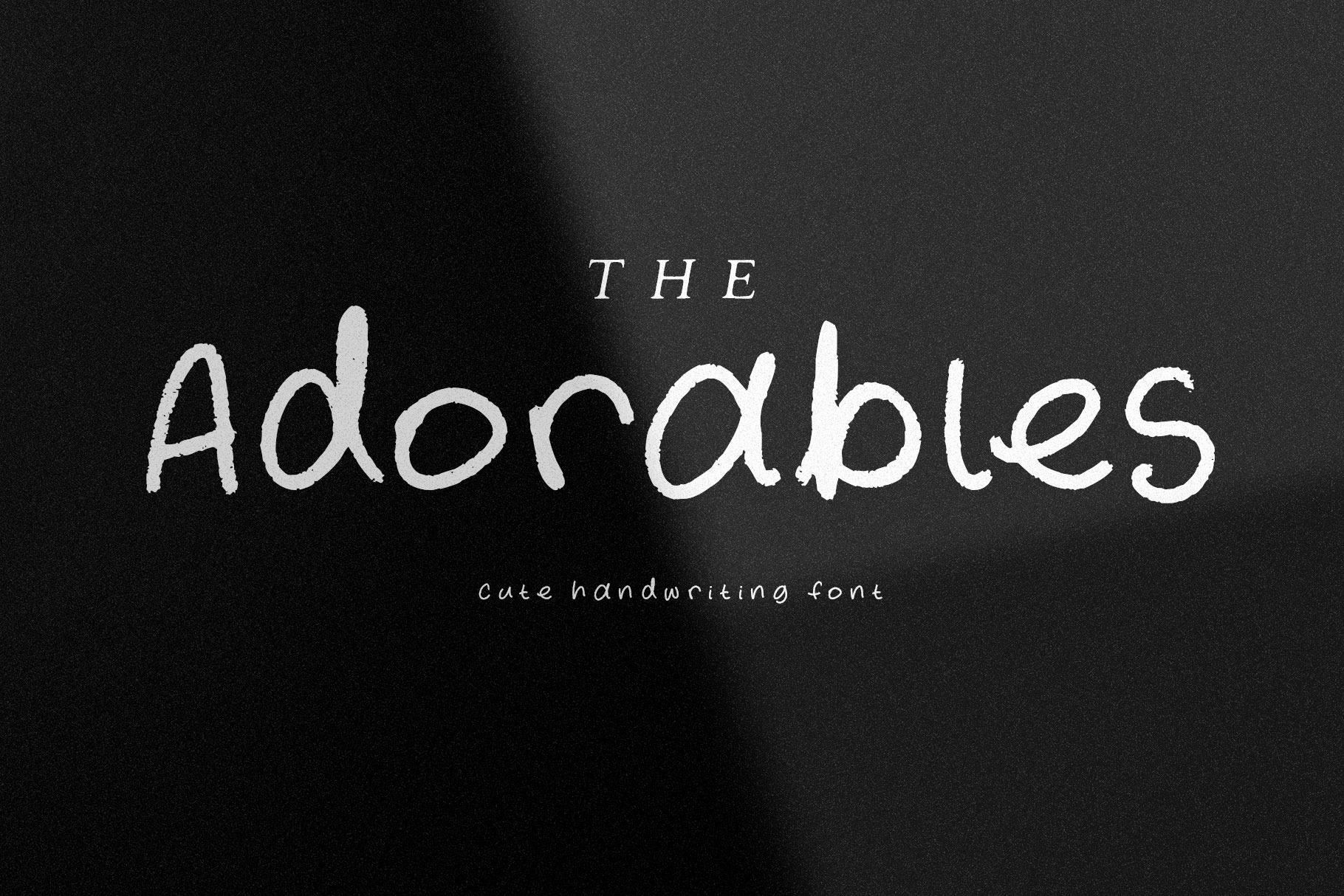
Adorables Handwriting Textured Font
*Adorables* is a sweet and simple hand-drawn font with a natural, slightly rough texture that adds a touch of character. Perfect for labels, quotes, branding, and anything that needs a casual handwritten feel.
This font is basic and easy to use—no alternates or extras—just clean, organic lettering that feels warm and friendly.